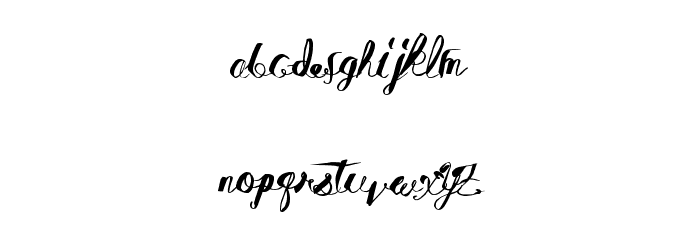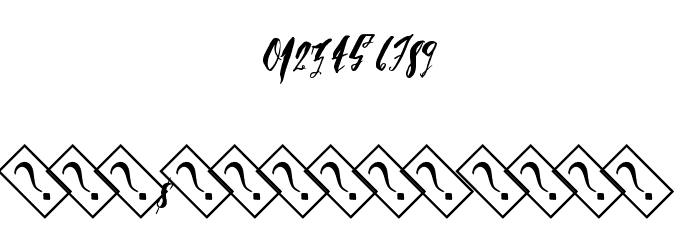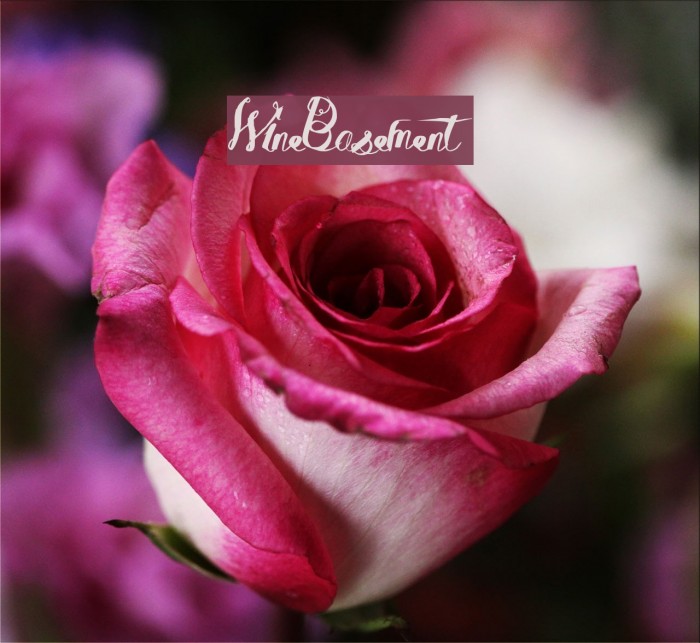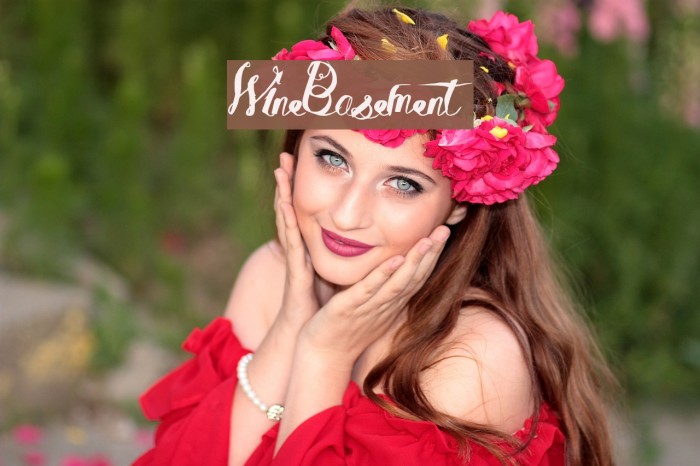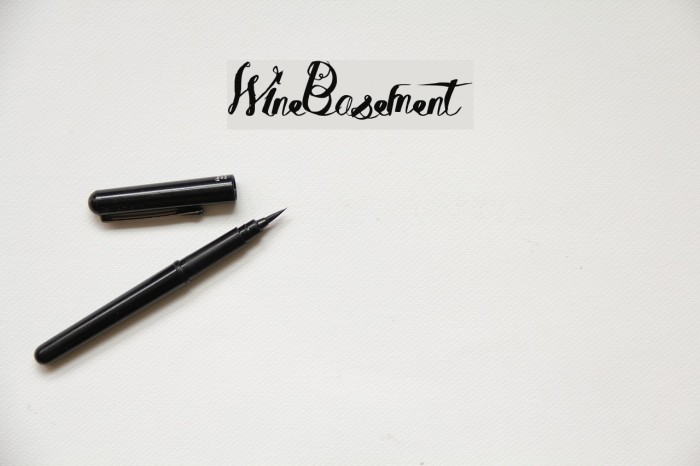
WineBasement Font
This font exhibits a highly decorative and artistic style, characterized by its intricate swirls and flourishes that extend from the main strokes of each character. The uppercase letters are particularly elaborate, with additional loops and embellishments that give the font a whimsical and ornate appearance. The lowercase letters maintain a similar decorative flair but are slightly more restrained, allowing for better readability. The numbers and special characters follow the same ornate design, ensuring a cohesive look across all characters. This font is ideal for projects that require a touch of elegance and creativity, such as invitations, greeting cards, or branding for luxury products.
An ornate and decorative font with intricate swirls and flourishes.
- Proposed Projects: Ideal for wedding invitations, luxury branding, artistic posters, and decorative signage.
- Use Case: Headlines, Logos, Invitations